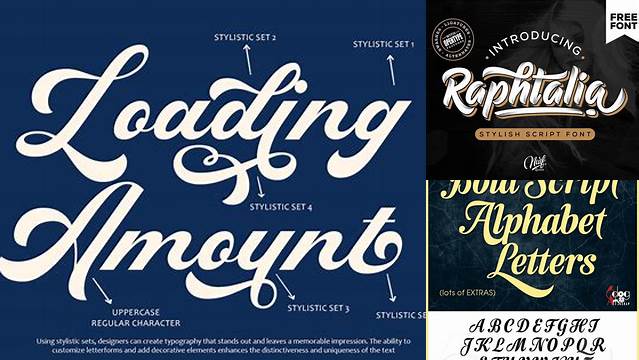
Free Script Fonts: Bold & Beautiful Designs
Are you looking to add a touch of elegance, personality, or a handmade feel to your design projects, guys? If so, you're probably exploring the world of fonts, and you've likely stumbled upon the charm of script fonts. But what if you want something that really grabs attention? That's where the free script font bold options come into play! In this article, we'll dive deep into the world of bold script fonts, exploring their uses, where to find them, and how to make the most of them. Get ready to discover the secrets to beautiful typography that's both eye-catching and accessible, y'all!
What Exactly is a Script Font and Why Choose a Bold One?
First things first, what even is a script font? Think of it as the digital version of handwriting or calligraphy. Script fonts mimic the flow and style of cursive writing, often featuring connected letters and elegant flourishes. They're fantastic for projects where you want to convey a sense of sophistication, creativity, or a personal touch. Think wedding invitations, logos, social media graphics, and even website headers.
Now, why go bold? A bold script font takes everything you love about script fonts and amplifies it. The thicker strokes make the font more prominent, ensuring it commands attention. Bold script fonts are perfect when you need to make a statement, create contrast, or ensure readability at smaller sizes. They offer a powerful visual impact, making your designs pop. It’s the difference between a whisper and a shout in the world of typography. Think of it like the difference between a soft, subtle brushstroke and a confident, energetic mark. This is especially important if you're using the font in a design that needs to be seen from a distance, like a banner or a poster. The added weight ensures that the text doesn't get lost in the background and that the message is clear.
Choosing a bold script font means you are aiming for a design that is impossible to ignore. It shows you have confidence. The thickness adds depth and dimension, making the text feel more substantial and grounded. It is also a smart choice because it has an impact. It's the kind of font that grabs attention, whether it's a logo, a headline, or a call to action. So, if you're looking to make your design stand out, a bold script font is a great way to do it. So, if you want something with more visual impact and legibility, a bold script font is the way to go!
Where to Find Free Script Font Bold Gems